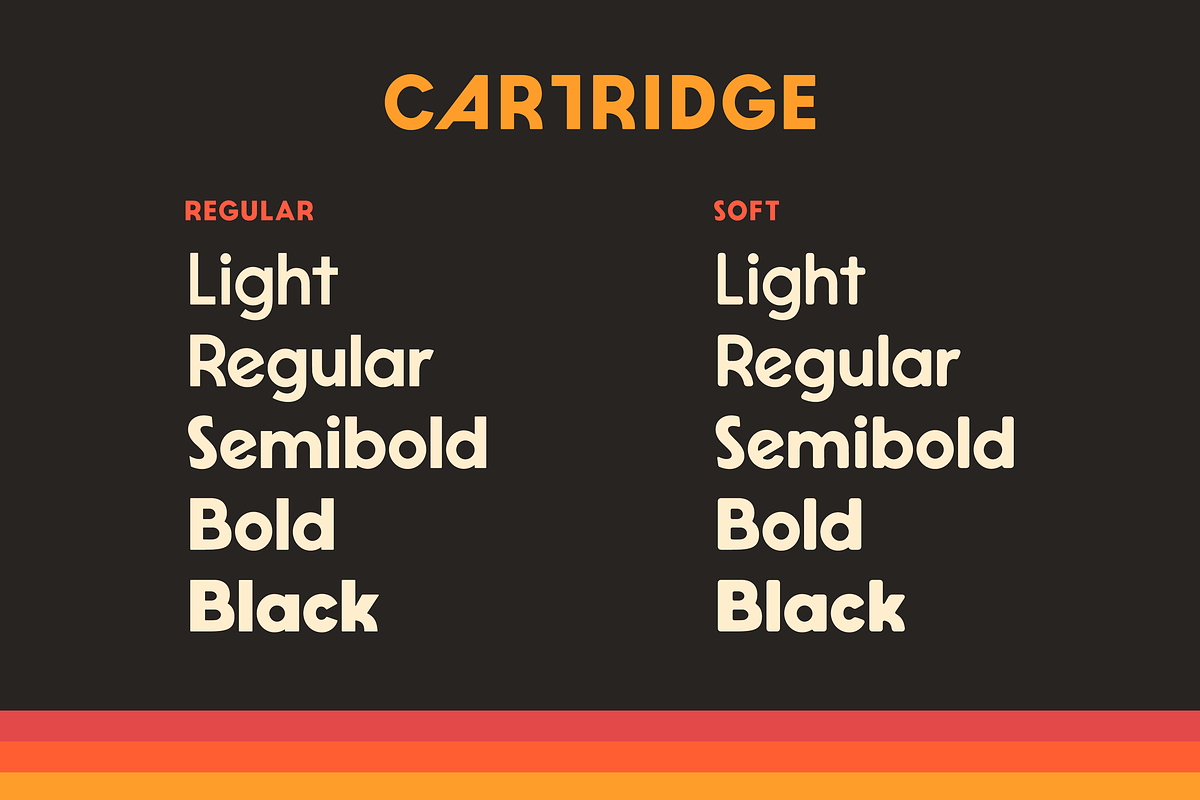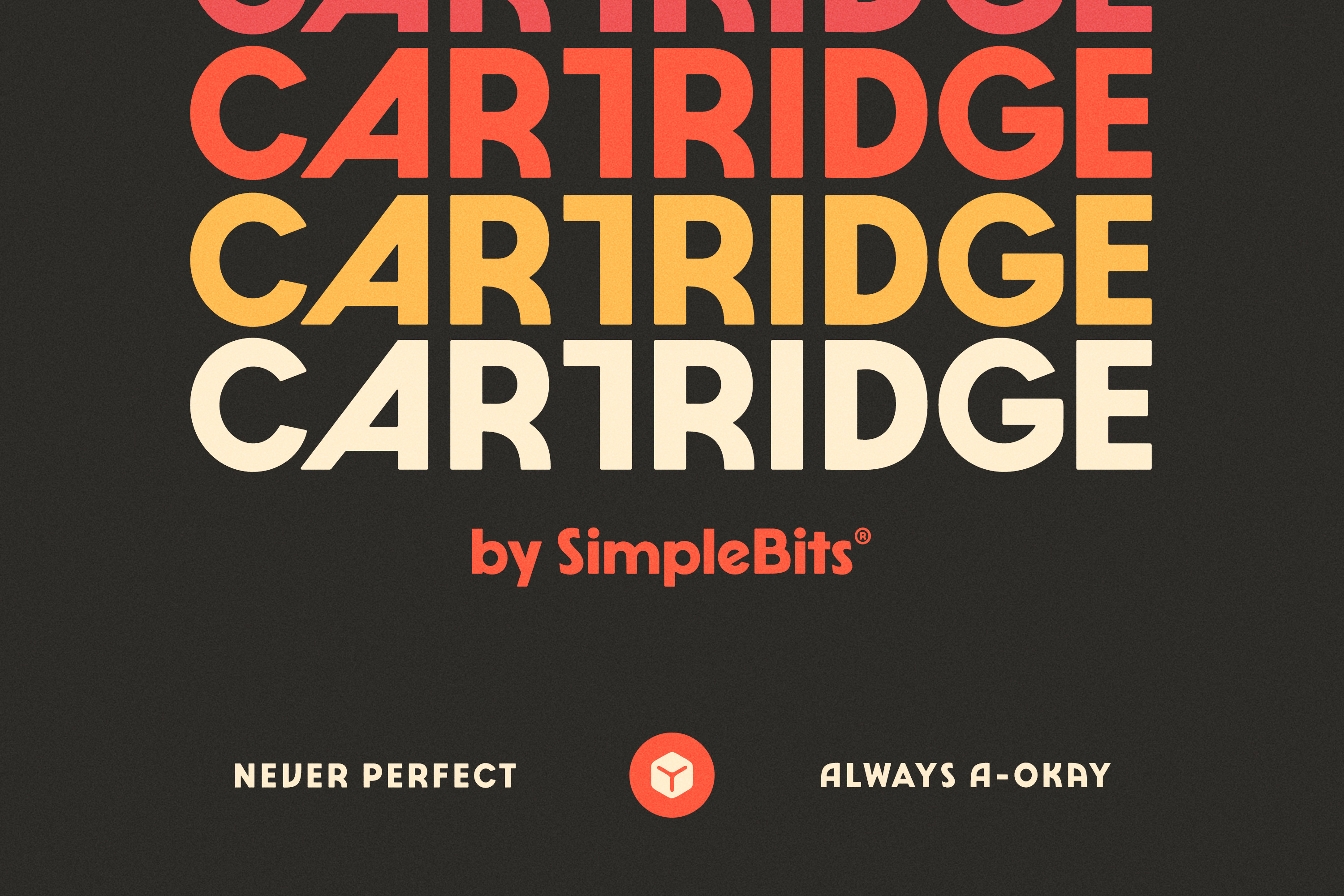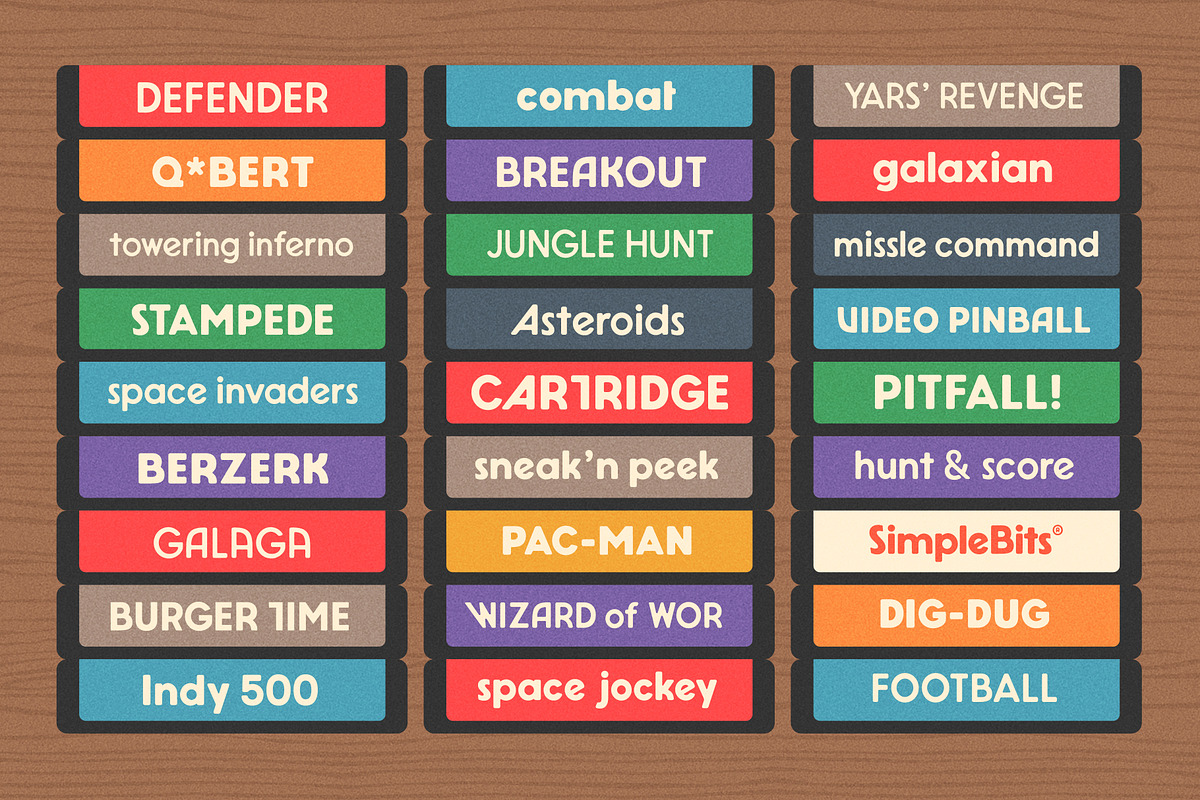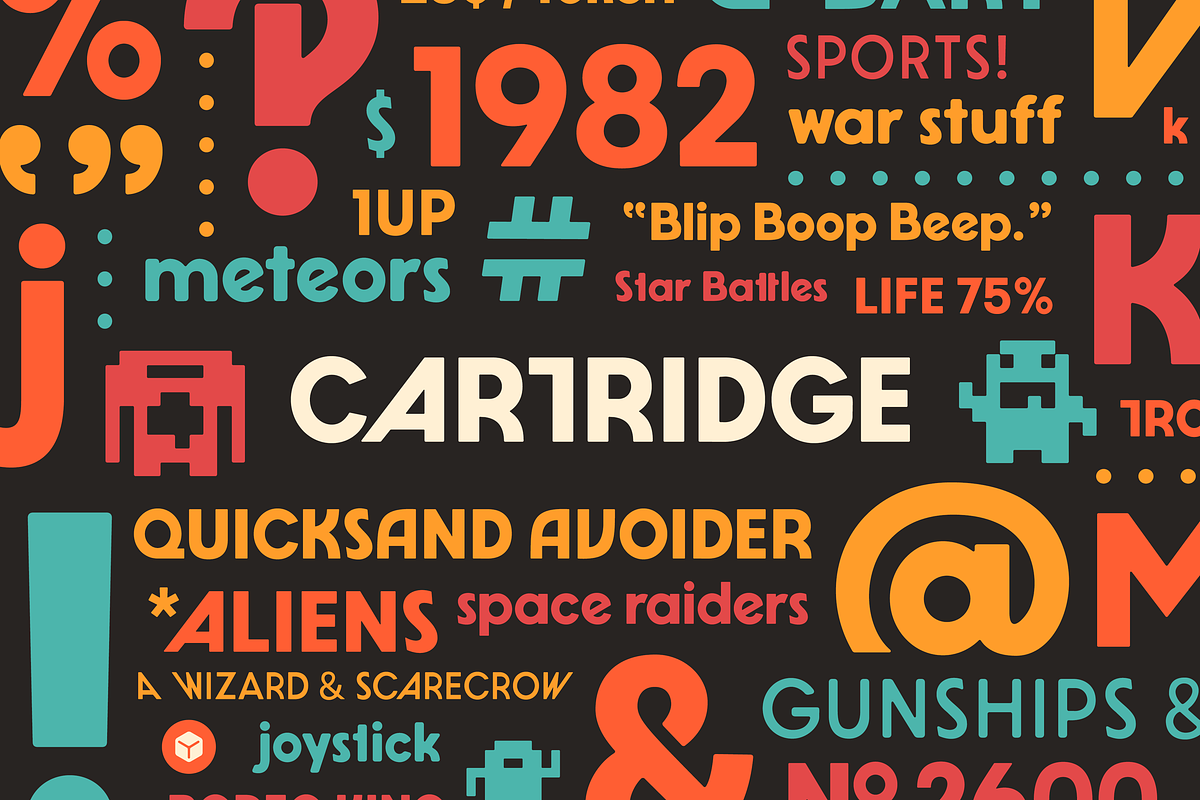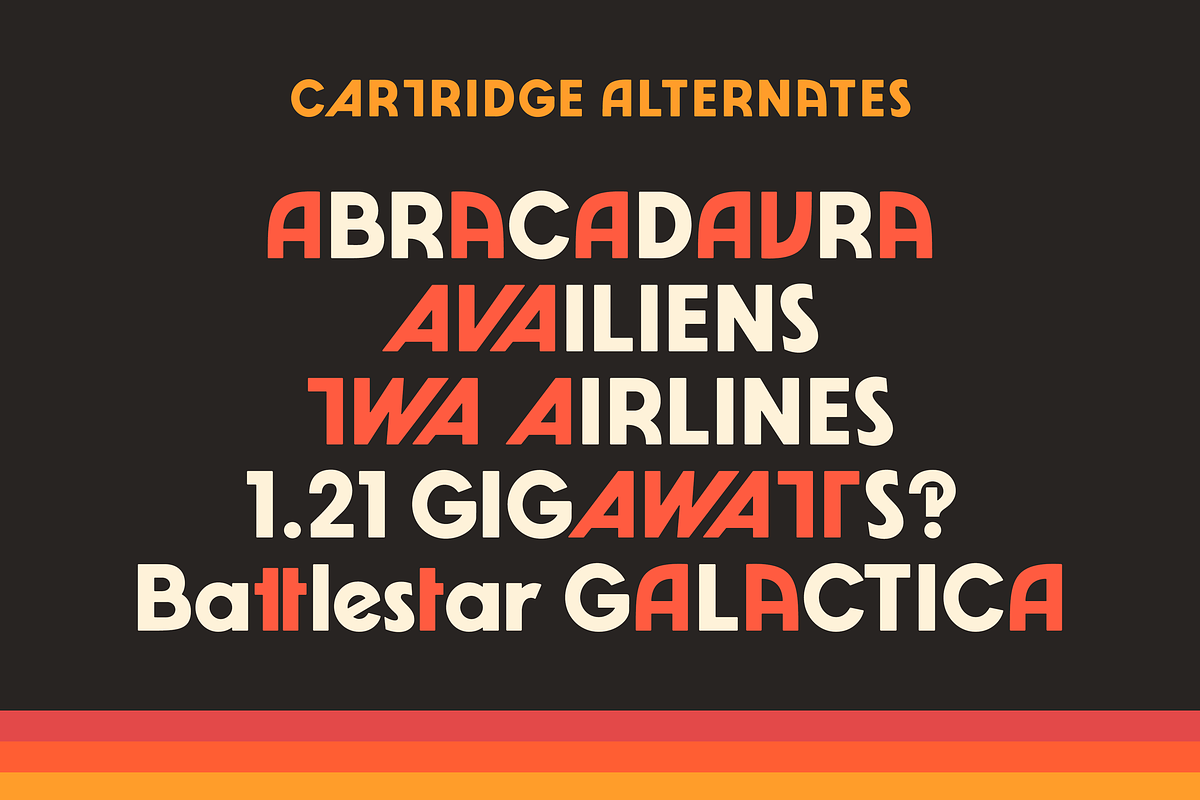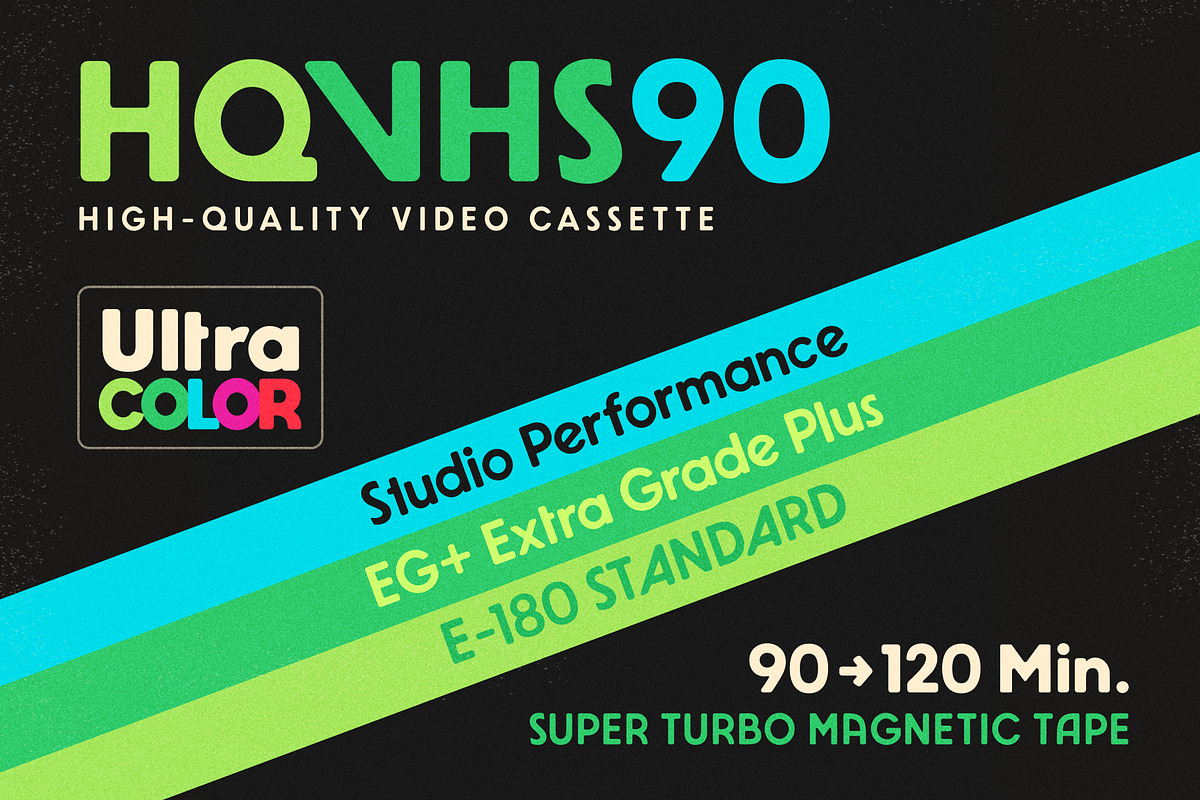
Cartridge — Retro video game font
Inspired by old video game labels, Cartridge is a new display sans-serif that evokes quintessential 80s vibes. I was obsessed with the Atari 2600 as a kid, and a recent trip to the local vintage video game store rekindled that—in particular the type found on its chunky, iconic cartridges.
The font features upper and lowercase, numbers, punctuation, diacritics for expanded language support, as well as several alternates that help dial in the genuine feel of early 1980s nostalgia. Included are 5 weights: Light, Regular, Semibold, Bold, and Black—all in both Regular and Soft variants. There are also three "Easter egg" Bit Monster characters I've had kicking around for years that would be right at home in Space Invaders, Galaga, etc.